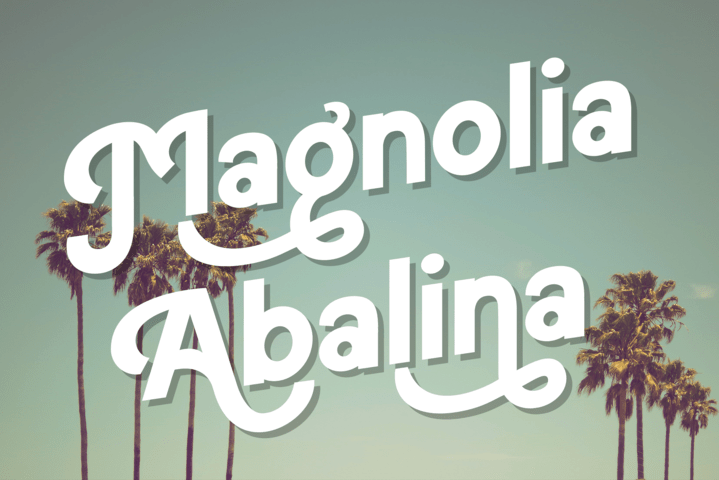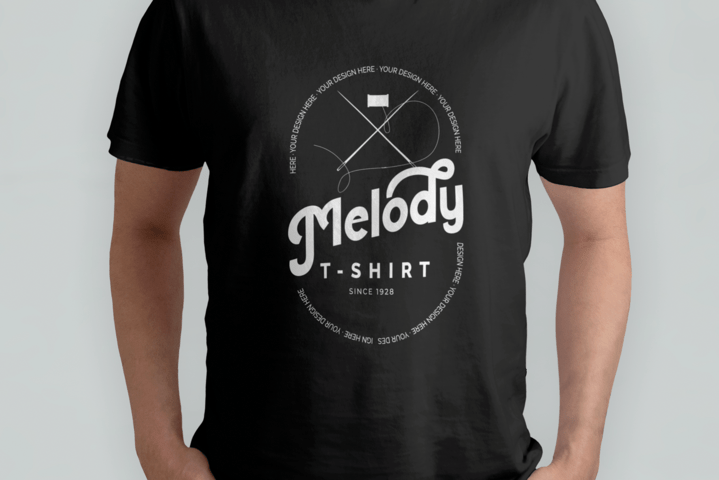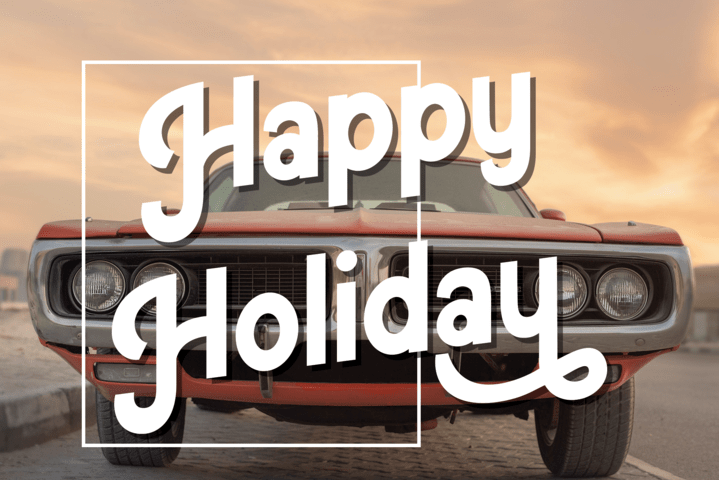
Mandala Vintage Sans Serif Font
It’s an amazing sans serif font that looks so authentic ad charming. It’s a great option for any project that needs solemn yet very appealing calligraphy! This font is PUA encoded which means you can access all of the glyphs and swashes with ease!